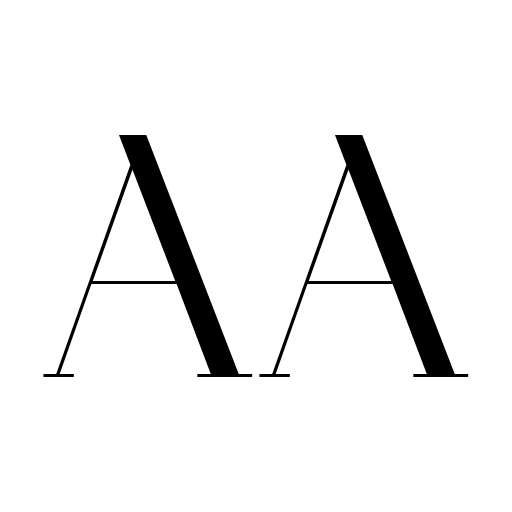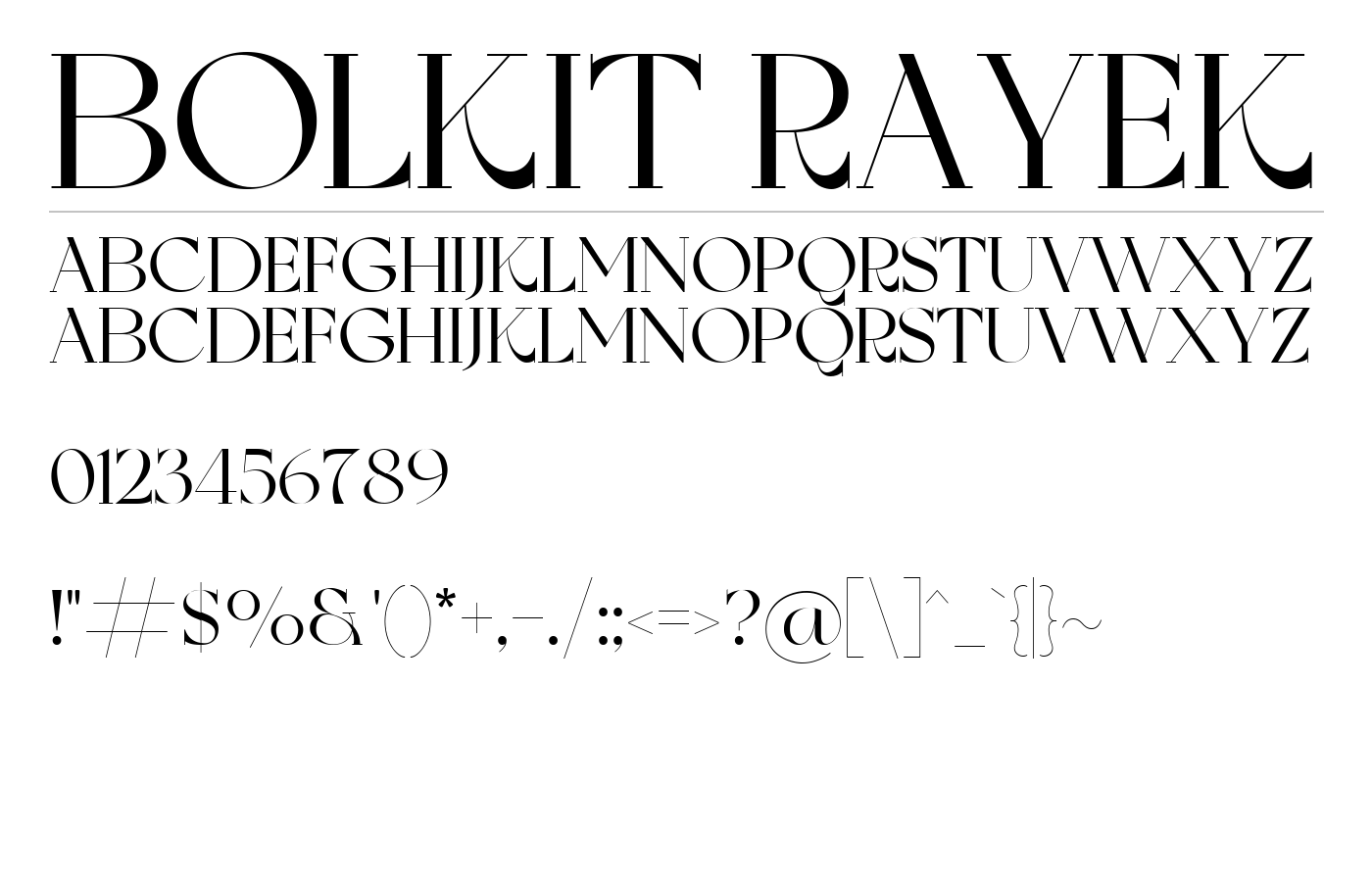
Bolkit is a sophisticated modern serif font that features high contrast between thick and thin strokes and delicate, sharp serifs with elegant bracketed details. Its slender, tall letterforms and refined curves give it a luxurious and stylish personality, making it ideal for fashion branding, editorial headlines, and upscale packaging where a high-end, graceful impression is desired. This font works best in large sizes to showcase its unique design and fine craftsmanship, adding a touch of elegance and exclusivity to any visual project.
Bolkit Font
About Bolkit Font
| Font family | Bolkit Font |
| Designer | Khaiuns |